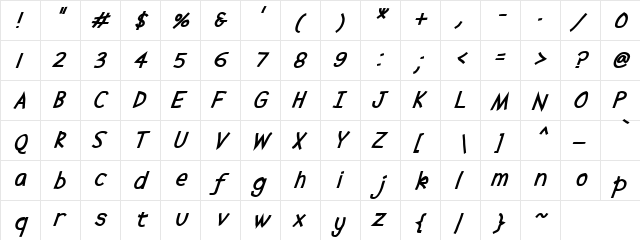
Slide Regular
Design Context for Slide Typeface
Slide offers clean, dependable letterforms without strong stylistic allegiance, making it a practical choice for designers who need flexibility.
Pro Tip: Use Slide in both headline and body roles to test its range before committing to a single application.